Spray Paint Fonts are not often the first font choice of many, but there is a handful out there that can really add texture, depth, and character to your texts.
Spray Paint Font Stencil Accents
Punk Kid Font
Punk Kid is a whimsical take on mixing a stencil style font and a spray paint font. The font only uses some letters with a spray paint accent to create that neat yet grunge overall look. Get this font here.
Octin Spray Paint
The Octin Spray Paint Font creates this selective spray paint look by keeping the spray paint accent in selected letters. The typeface features round-edged sans serif characters with spaces on the letter joints for an overall stencil effect. Click here to download this font.
World Conflict Font
A free font featuring lots of paint splatter with line accents for that stencil impression. Download this font for free here.
Uniquely Sprayed Font
A font designed by Bosil Unique fonts. Definitely a unique take on a Spray Paint Stencil Font that you can use for personal projects and whatnot. Click here to get this font.
Spray Paint Drip Font
Spray Me Regular Font
A spray paint style font with that dripping effect for that freshly painted look. To download this font, click here.
Paint Drops Font
The name speaks for itself. The Paint Drops font features all caps letters with that dripping paint aesthetic. This font is for personal use only, click here to download.
Retaliation Font
The Retaliation font incorporates the spray paint drip effect on thin all capital block fonts. A great font to use for a subtle yet impactful spray paint look. Click here to get this font.
Jot Spray Paint Font
This font features both spray paint drip, splatter, stencil style. A distinctive style to use in creative designs. Download this font here.
Spray Paint Graffiti Fonts
Crooth Font
The Crooth Font features a Spray Paint Graffiti font style that’s refreshing, and easy to the eyes. Consider using this font if you’re looking for that graffiti aesthetic. This font is free to download and for personal use.
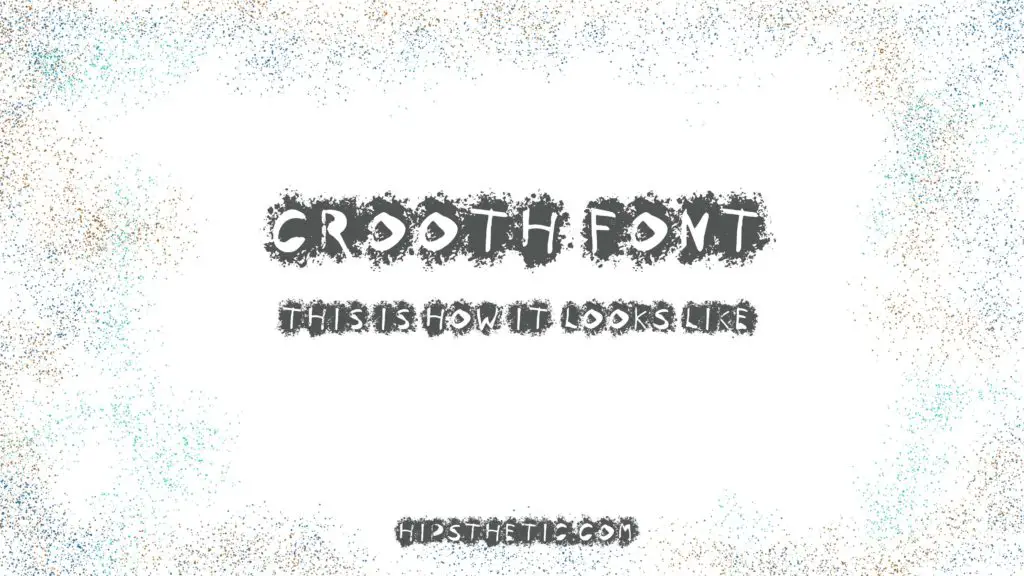
Shotgun Wedding Font
Shotgun Wedding is a bold thick serif font with spray paint accents for that Spray Paint Graffiti aesthetic. Free for personal use just click here to download.
Dog Rough
Dog Rough is a spray paint graffiti font exhibiting thick bold sans serif characters with round edges and spray paint splatter. If you’re going for the street graffiti look, this font is for you. Click here to download.
Spray Paint Fonts
Spray Letters
Spray Letters features crooked lines, rounded edges with that sprinkle texture for that spray paint effect. Its uneven characters give that impression of raw graffiti. This font is free for personal use only, download it here.
Sister Spray
Sister Spray features a rough, graffiti style font with spray accents. This font’s mix of rugged and structure makes it stand out as it plays on texture, curves, and lines. Click here to download this font.
Dust Serif
The Dust Serif font displays wide serif characters with subtle spray paint accents. This is a great font to use if you’re going for something with added texture and drama. Click here to download this font.
Epidemia
The Epidemia typeface displays a narrow bold sans serif font with spray paint specks. Interestingly, this font displays the spray paint effect in a tidy yet striking manner, as it is kept within the characters. This is a great font to use if you’re looking for something with a neat textured finish. Click here to download this font.